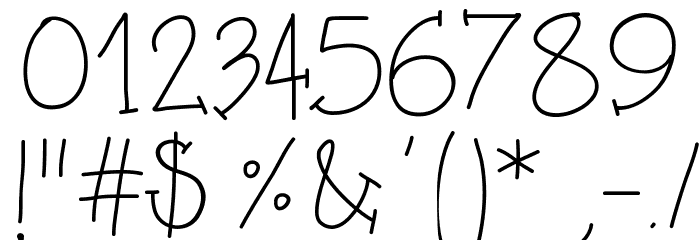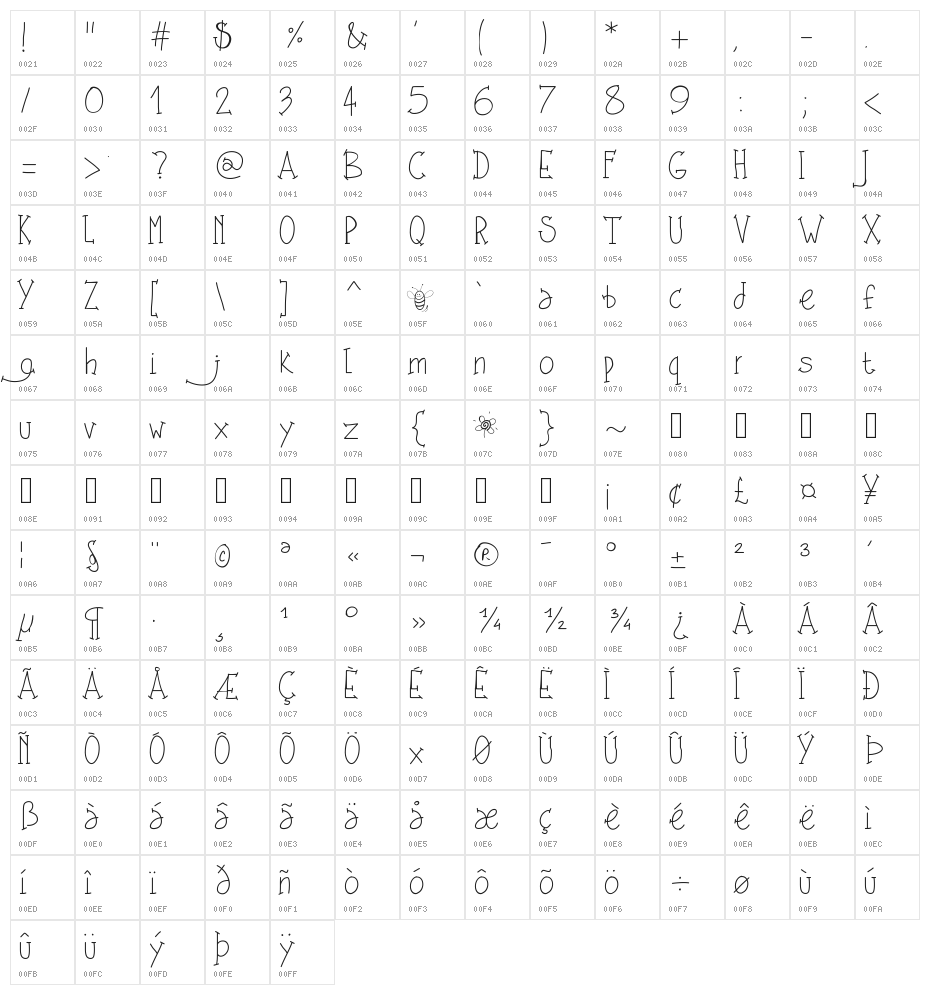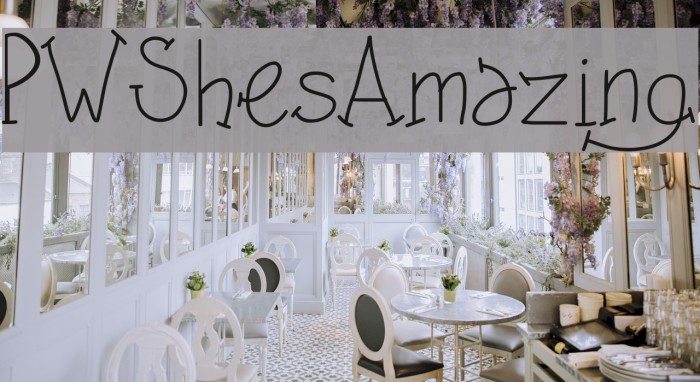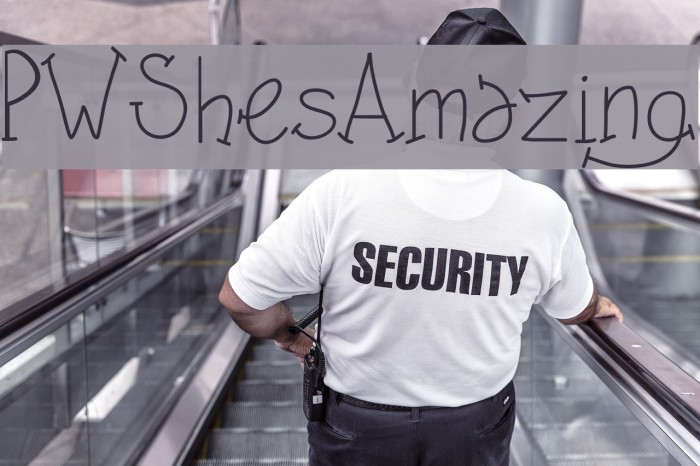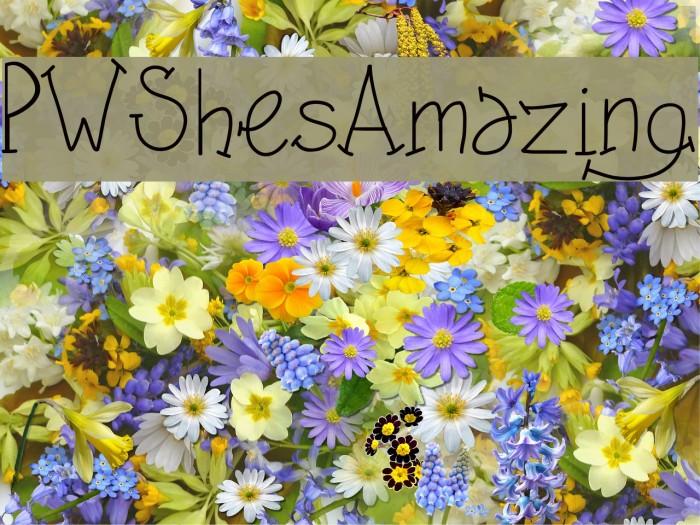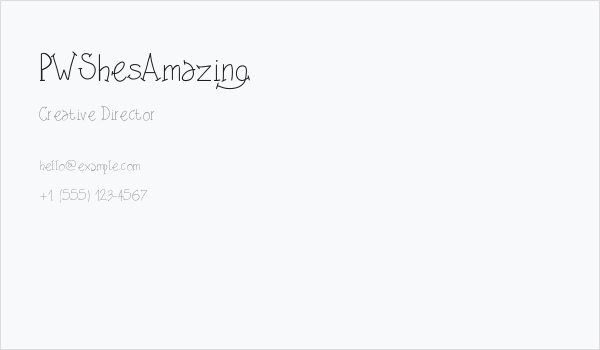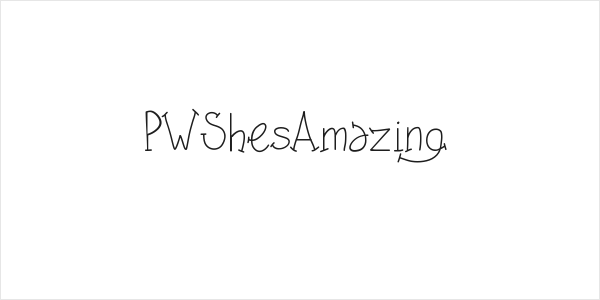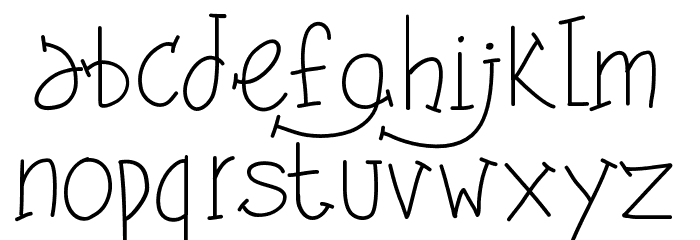
PWShesAmazing Font
PWShesAmazing Description
This playful and whimsical font features a handwritten style with a casual and informal appearance. The characters have a slightly irregular baseline, adding to the font's charm and personality. The strokes are thin and consistent, with a slight variation that gives a lively and dynamic feel. The uppercase letters are tall and narrow, while the lowercase letters have a more rounded and open form. The numbers and special characters maintain the same playful style, making this font suitable for creative and fun projects.
| Proposed Projects | Ideal for children's books, greeting cards, playful branding, and casual invitations. |